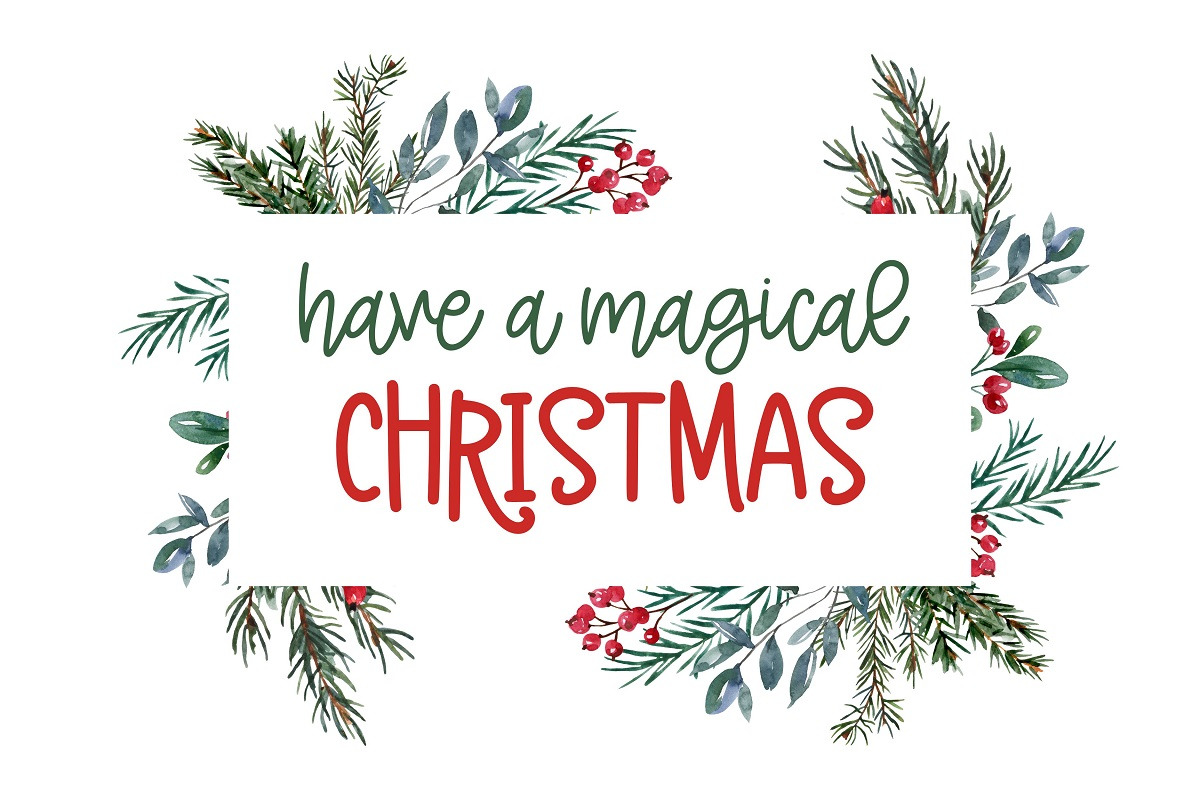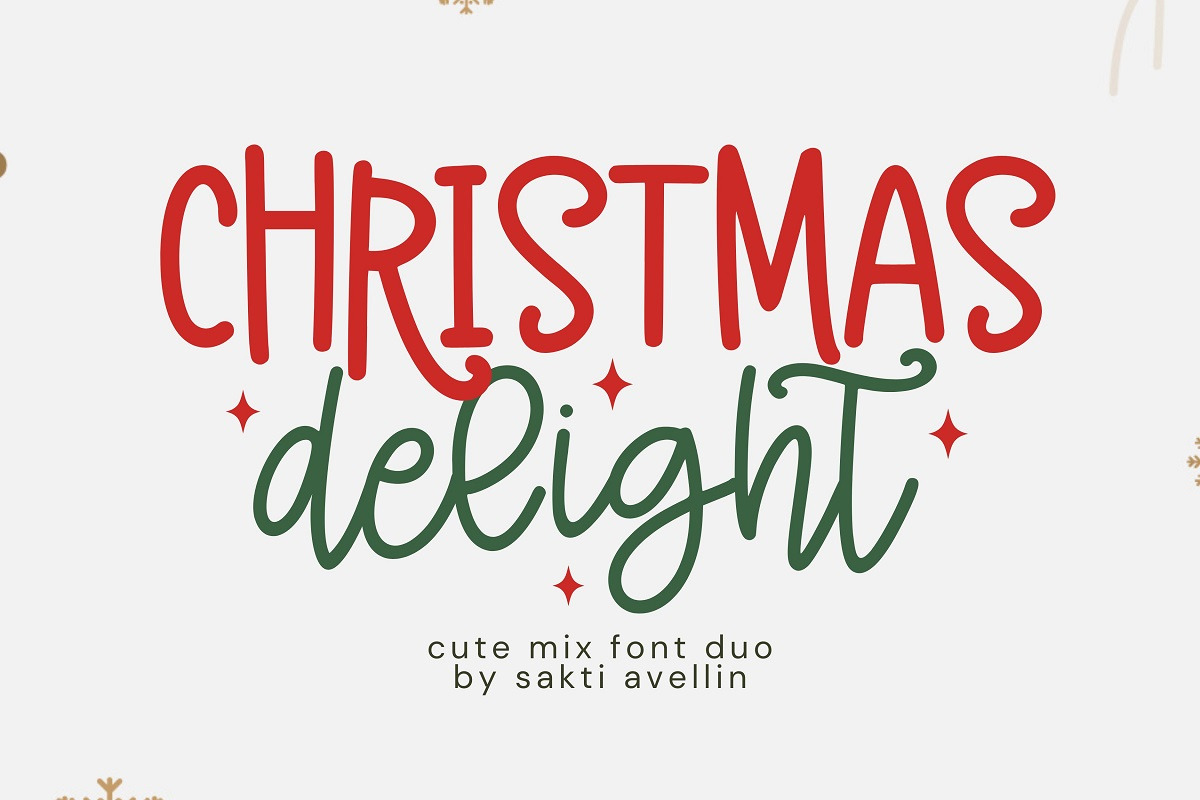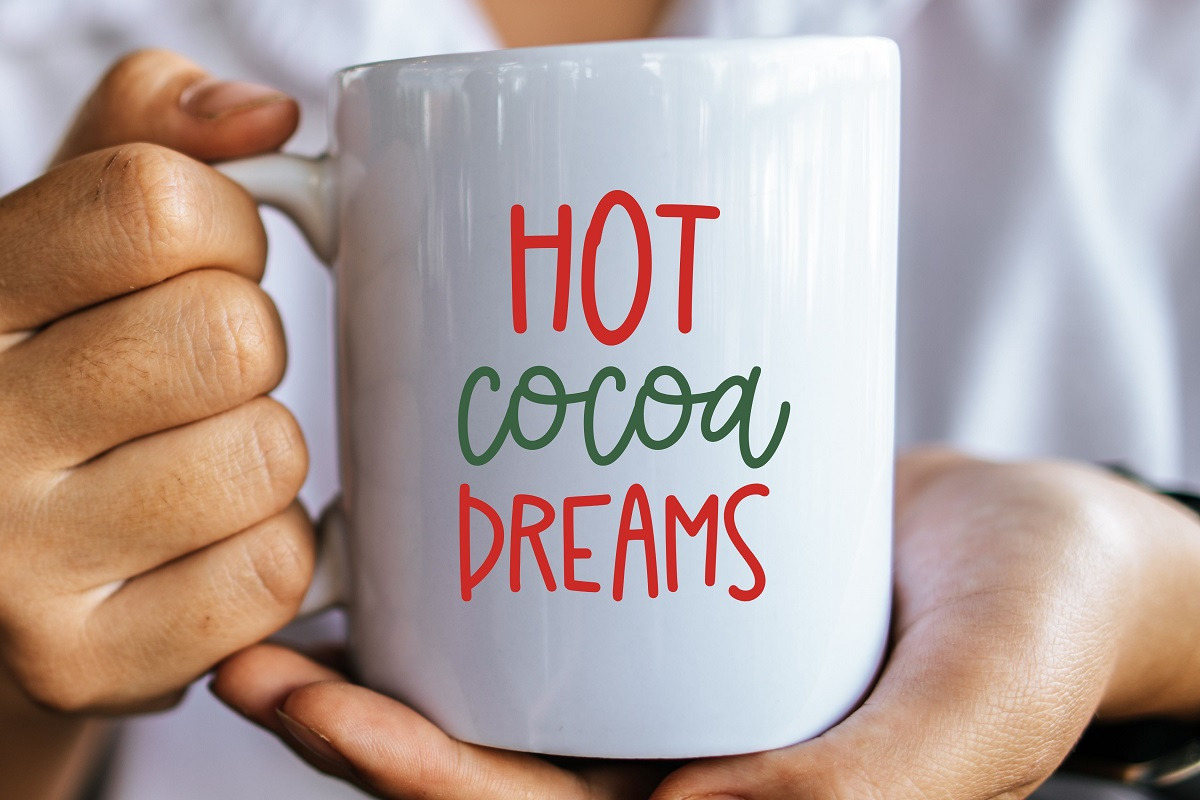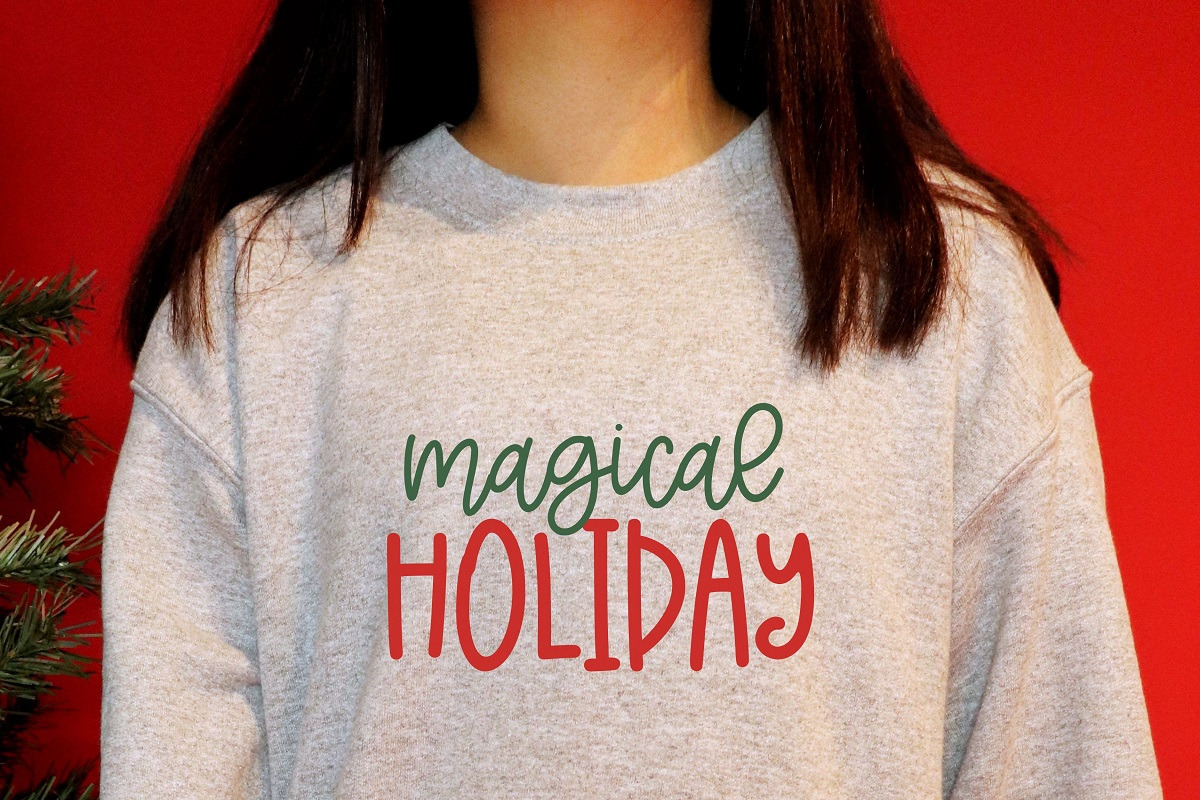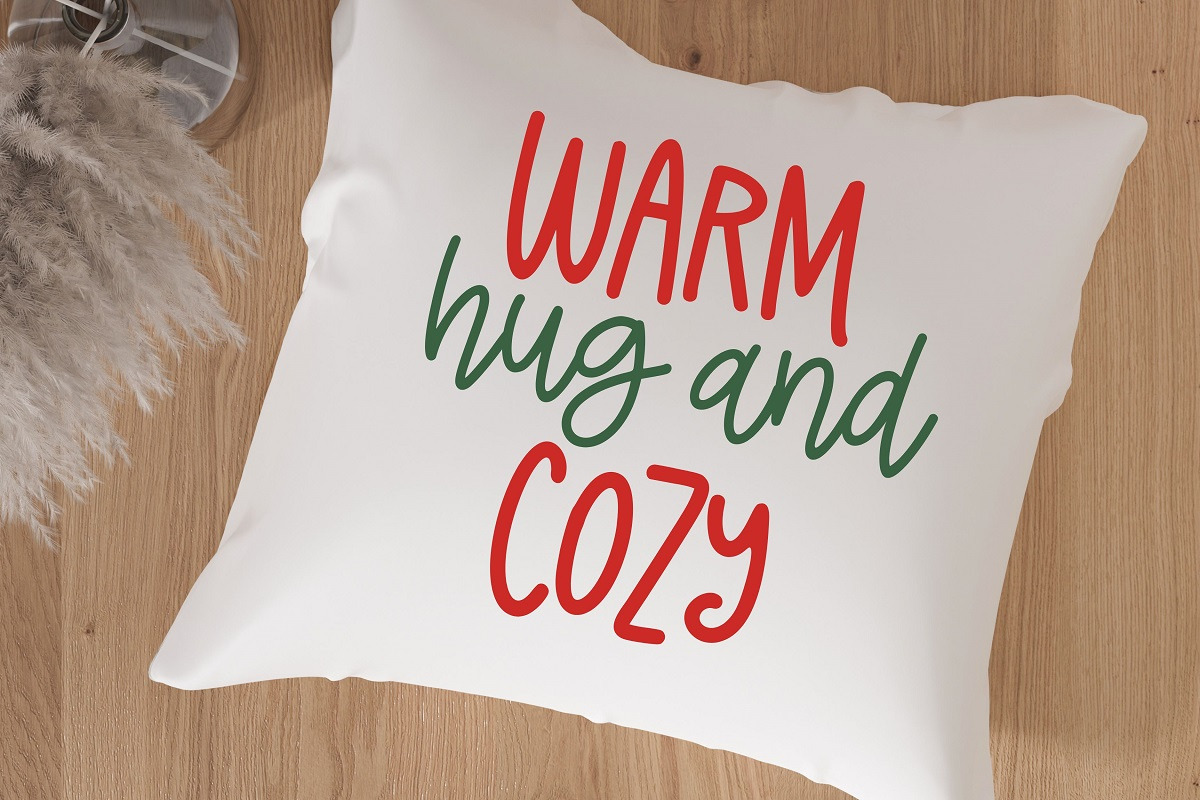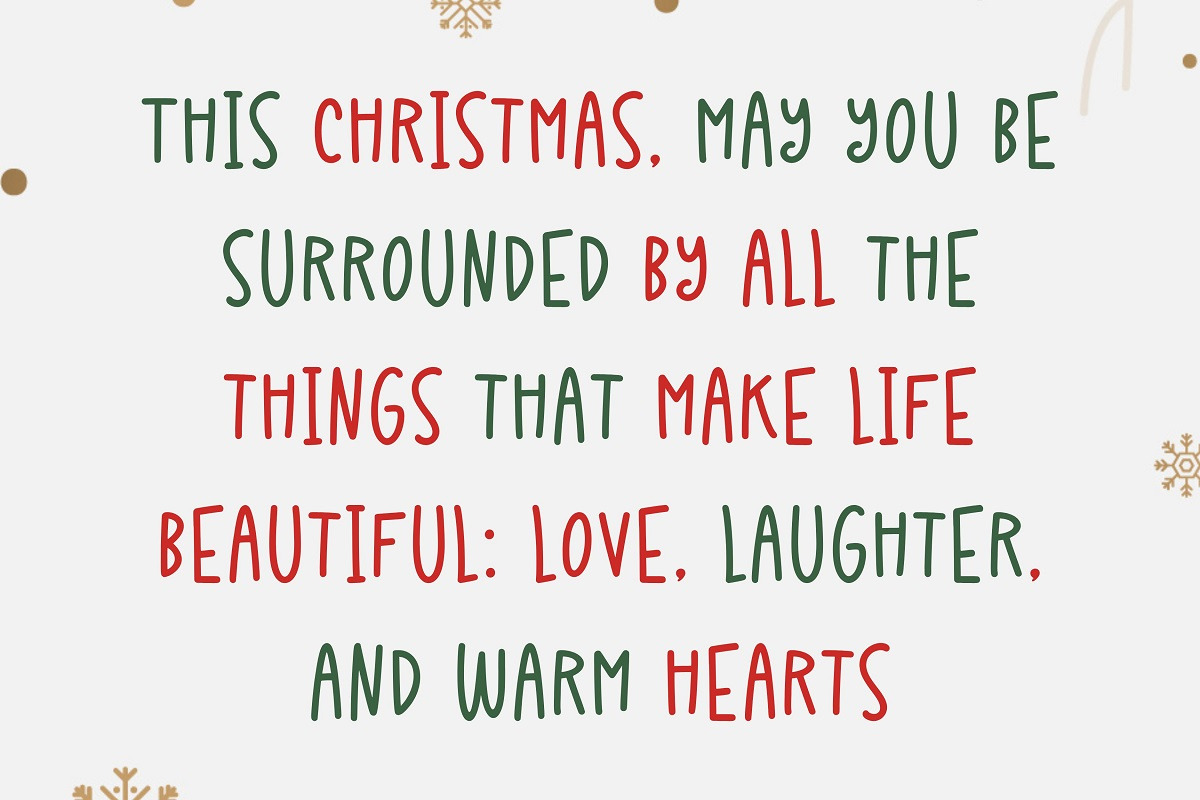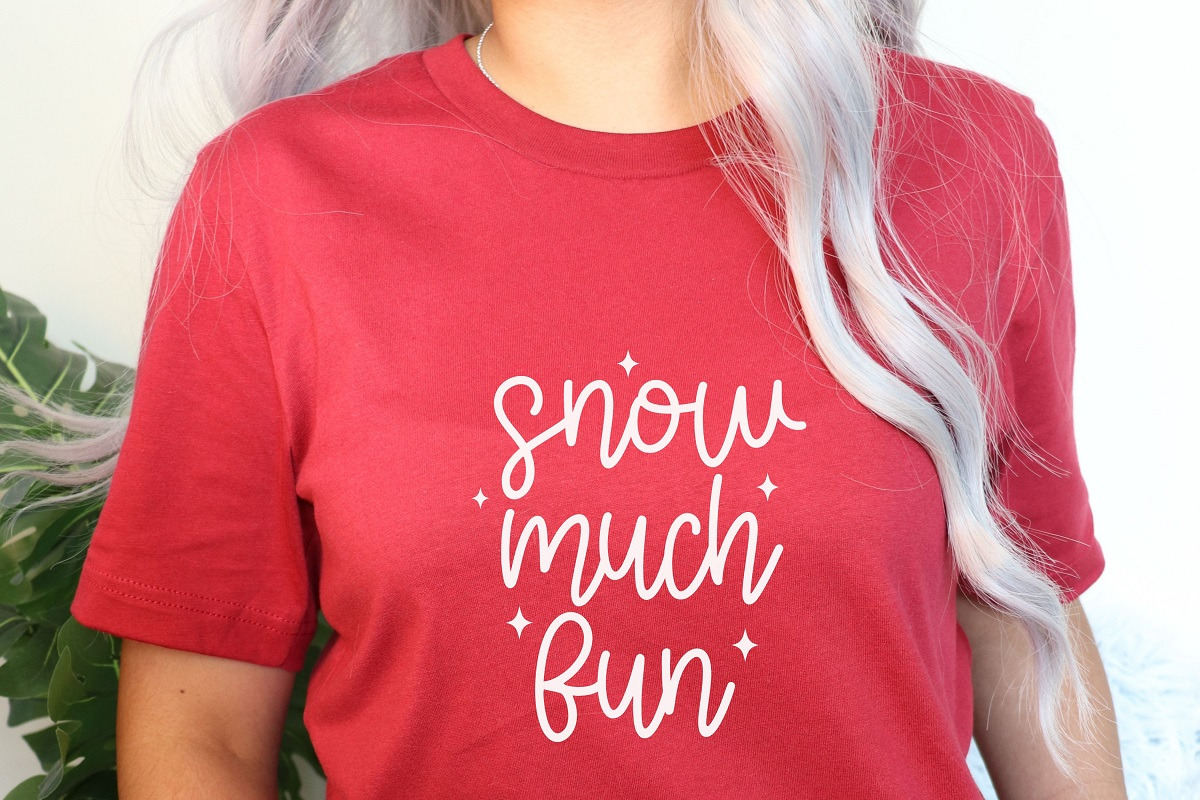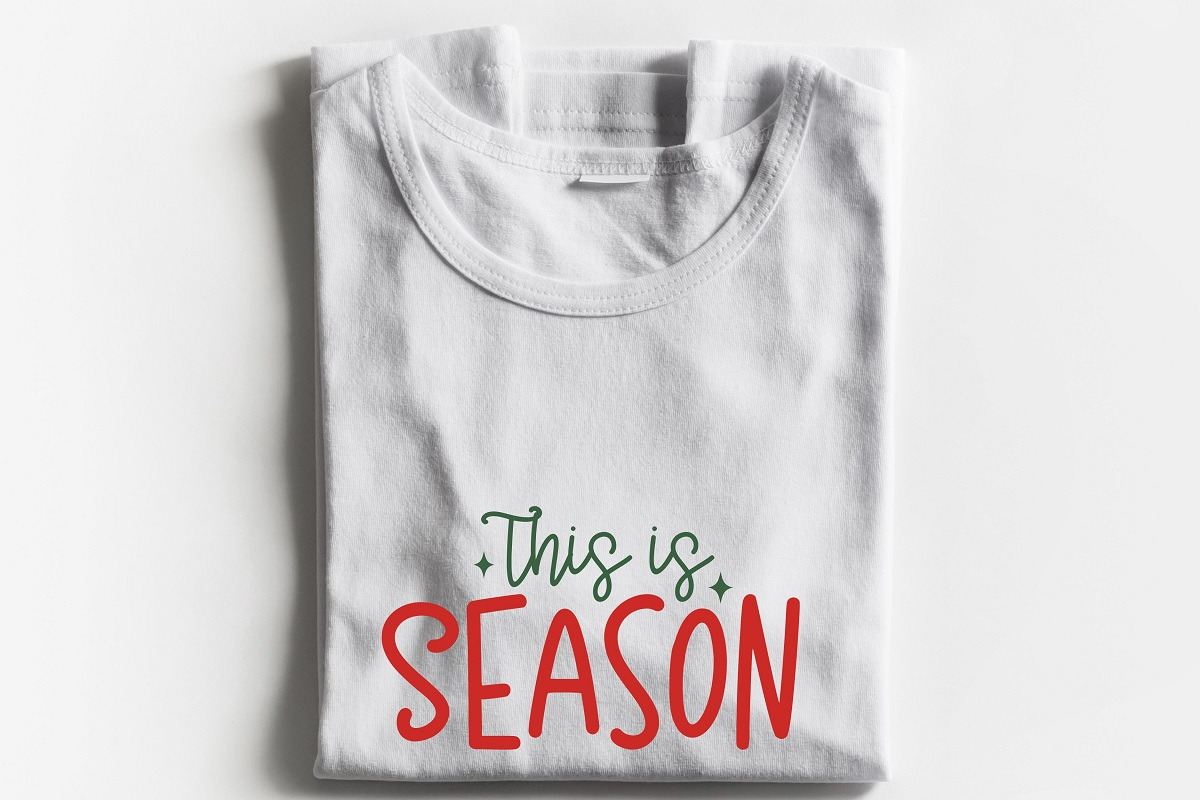
Christmas Delight - Mix Font Duo
Christmas Delight is a charming and cute mix font duo designed to add a festive and personal touch to your holiday creations. This versatile set features a playful, tall handwritten sans paired with a graceful, flowing script, making it an ideal choice for holiday branding, Christmas greeting cards, seasonal gift tags, and merry social media graphics. Its hand-drawn aesthetic and harmonious pairing ensure it stands out as a powerful decorative font duo for headlines and stationery, perfect for designers looking to blend seasonal joy with a modern, handcrafted feel. Celebrate the season with the delightful and creative energy of Christmas Delight!